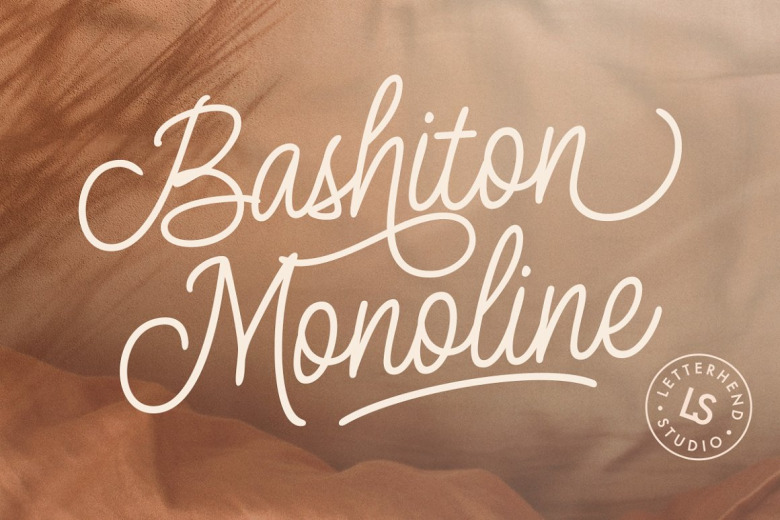
Bashiton Monoline Font
Bashiton Monoline Font – a monoline script with a touch of vintage look and feel. This type of font perfectly made to be applied especially in logo, headline, signage and the other various formal forms such as invitations, labels, logos, magazines, books, greeting / wedding cards, packaging, fashion, make up, stationery, novels, labels or any type of advertising purpose.
Bashiton Monoline Script Font